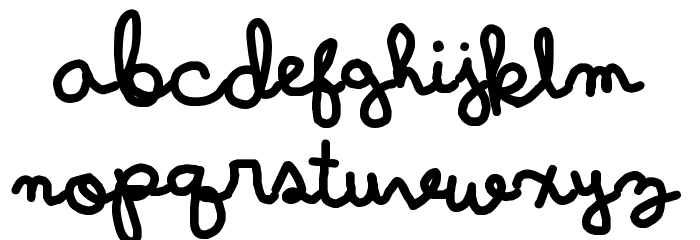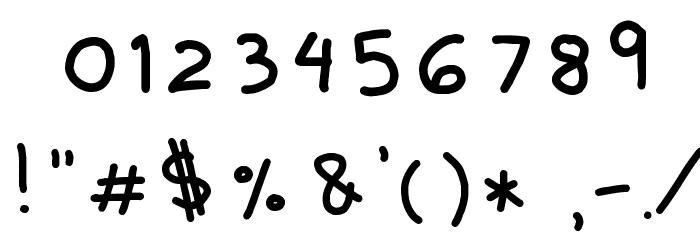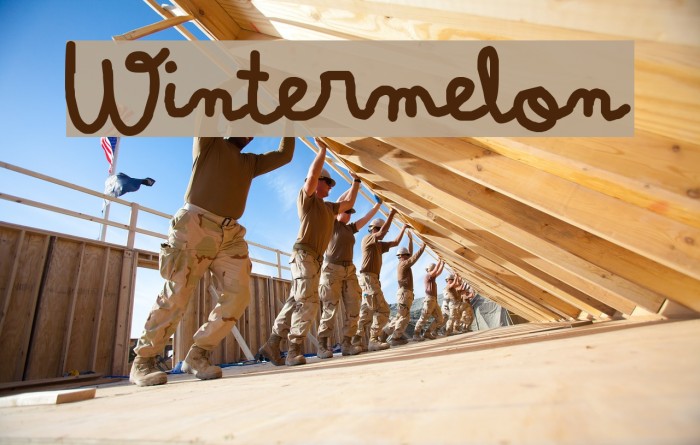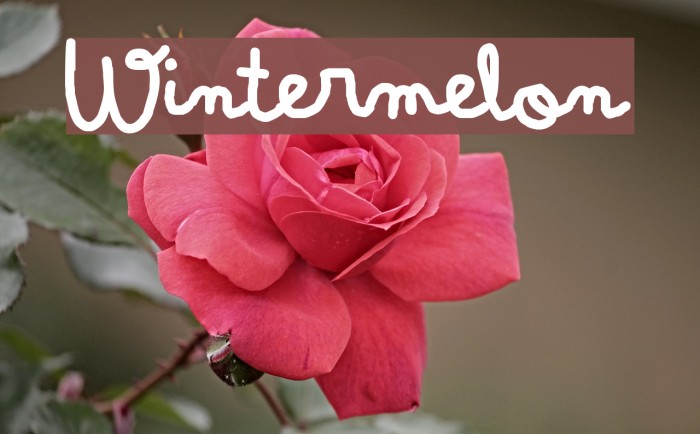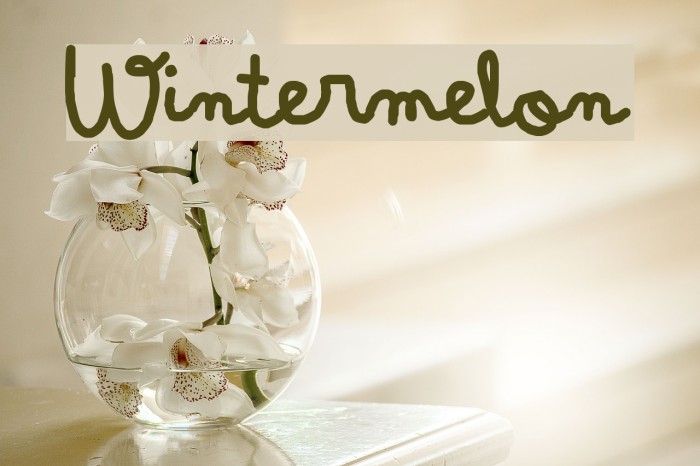
Wintermelon Font
This font features a playful and casual handwritten style, characterized by its fluid and continuous strokes. The letters are interconnected, giving it a cohesive and flowing appearance. The uppercase and lowercase letters maintain a consistent style, with rounded edges and a slightly irregular baseline, adding to its charm. The numerals and special characters follow the same playful aesthetic, making it suitable for informal and creative projects. The overall look is approachable and friendly, making it ideal for projects that require a personal touch.
A playful, handwritten font with fluid, interconnected strokes.
- Proposed Projects: Ideal for greeting cards, invitations, children's books, and creative branding.
- Overall Style: Casual, Playful
- Use Case: Headlines, Informal text, Creative projects